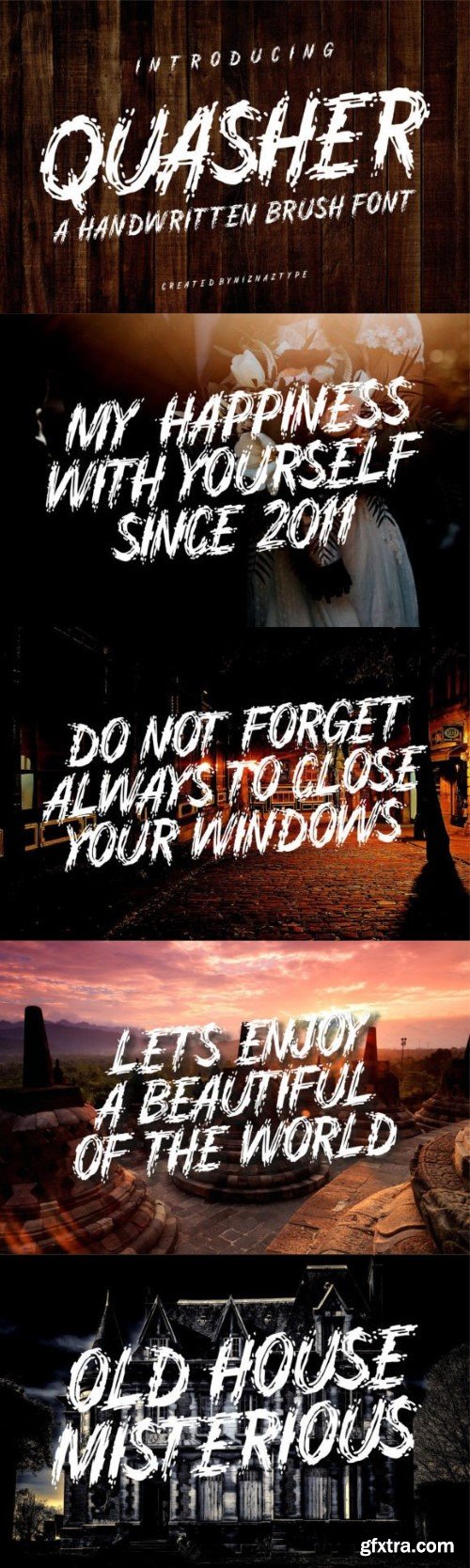
Quasher is a rough and natural brush handwritten font. Its natural and unique style makes it incredibly fitting to a large pool of designs. The only limit is your imagination!